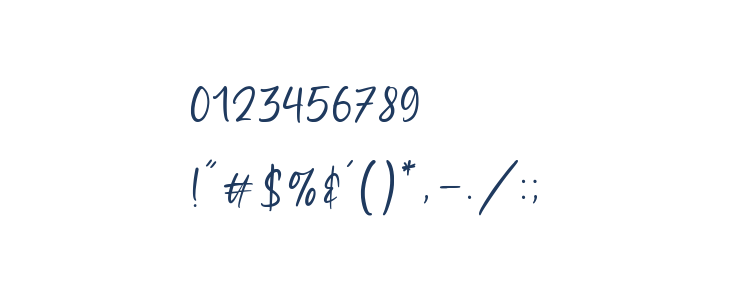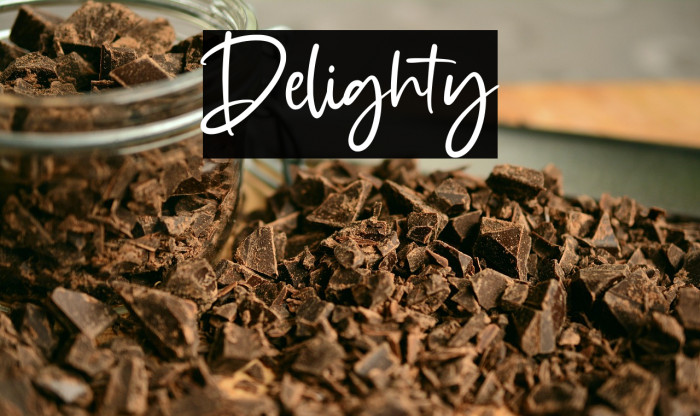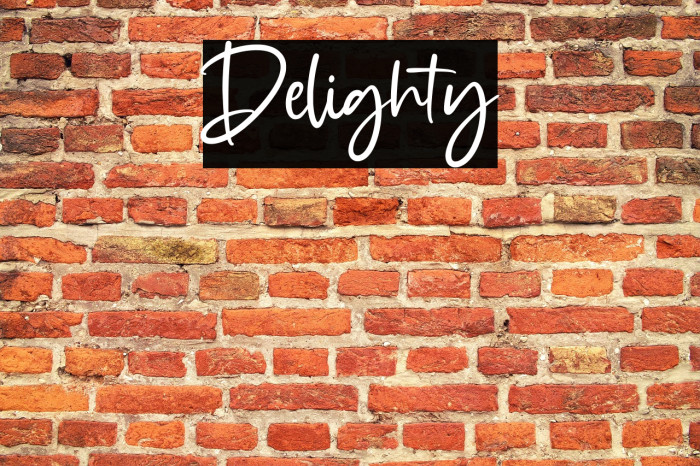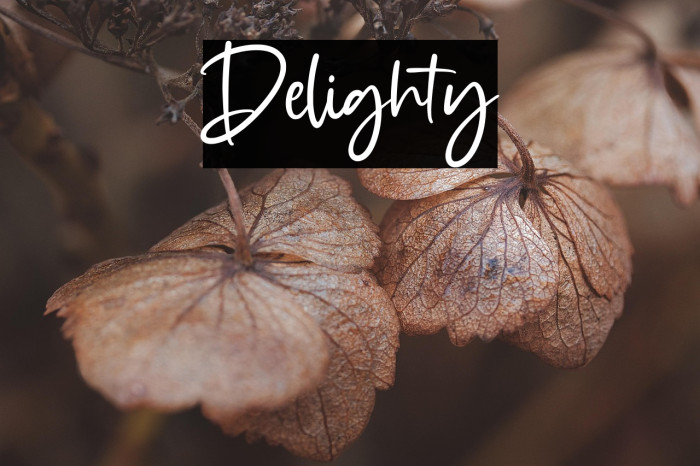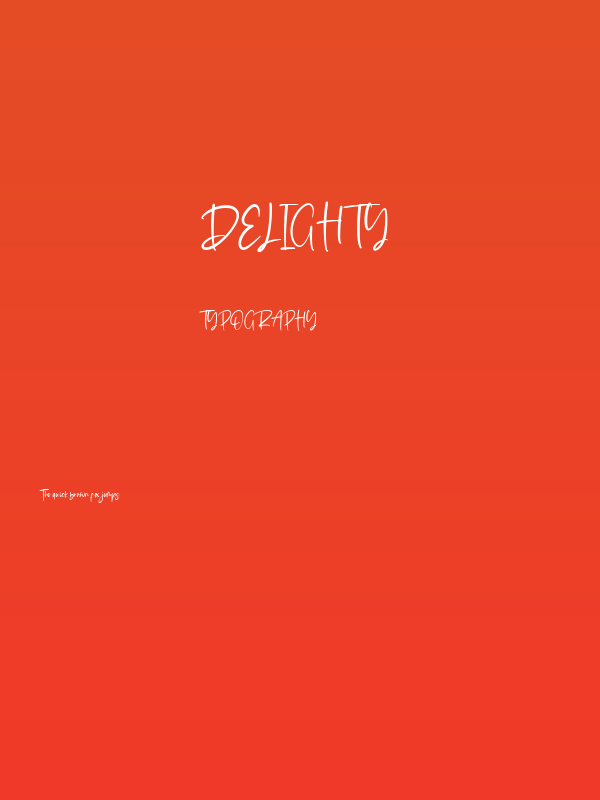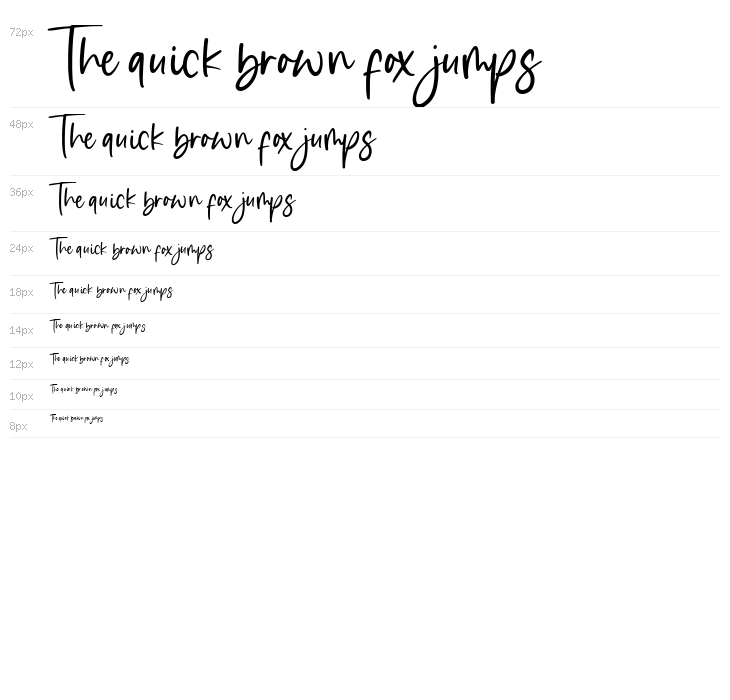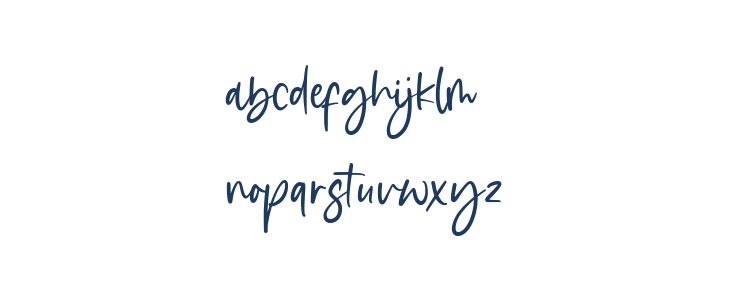
Delighty Font
Delighty Description
This font features a playful and casual handwritten style, characterized by its fluid and dynamic strokes. The letters are slightly slanted, giving it a lively and informal appearance. The uppercase letters are bold and prominent, while the lowercase letters maintain a consistent flow with a touch of whimsy. The numbers are clear and easy to read, matching the overall style of the alphabet. Special characters are included, maintaining the same playful aesthetic. This font is perfect for projects that require a personal and approachable touch.
| Overall Style | Casual |
| Use Case | Logos, Headlines, Invitations |
| Proposed Projects | Ideal for greeting cards, invitations, personal branding, and social media graphics. |